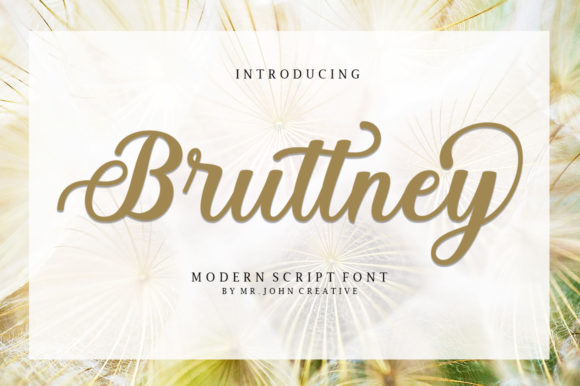
Bruttney
About Bruttney Font
Bruttney feels incredibly elegant and flowing. It looks stunning on wedding invitations, thank you cards, quotes, greeting cards, logos, business cards, and every other design which needs a handwritten touch. It features a varying baseline, smooth lines, gorgeous glyphs, and stunning alternates.